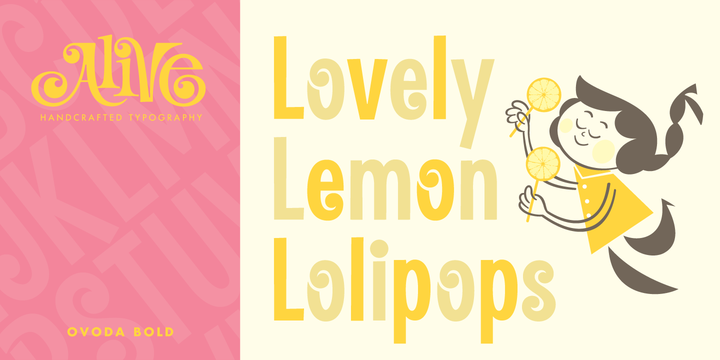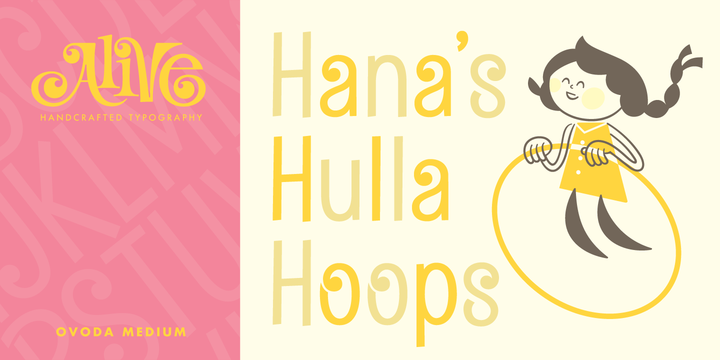
Ovoda Font Family
About this font family
Whether summer, winter or fall, Ovoda is posed to add a youthful yet refined touch to any design. Use Ovoda’s three weights to pucker up your latest packaging or liven up your layouts. Ovoda is a must have for your clubhouse!